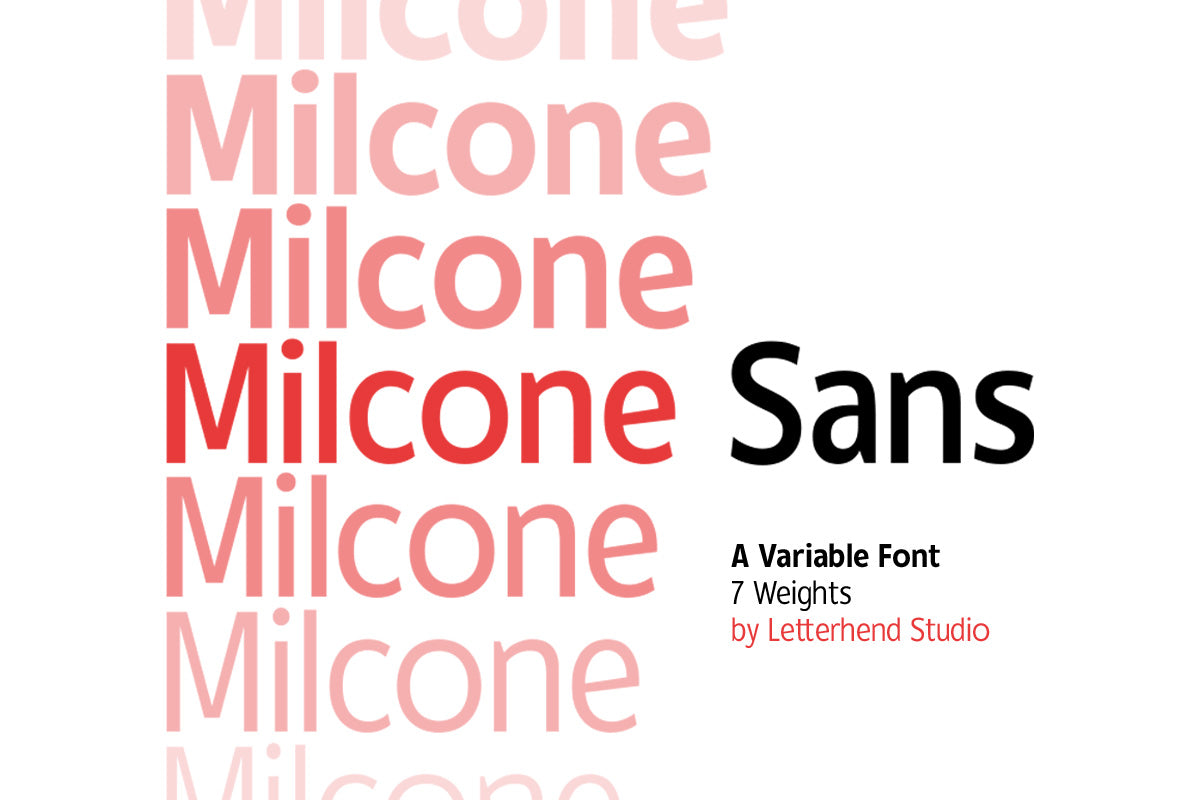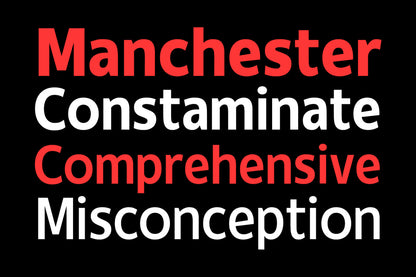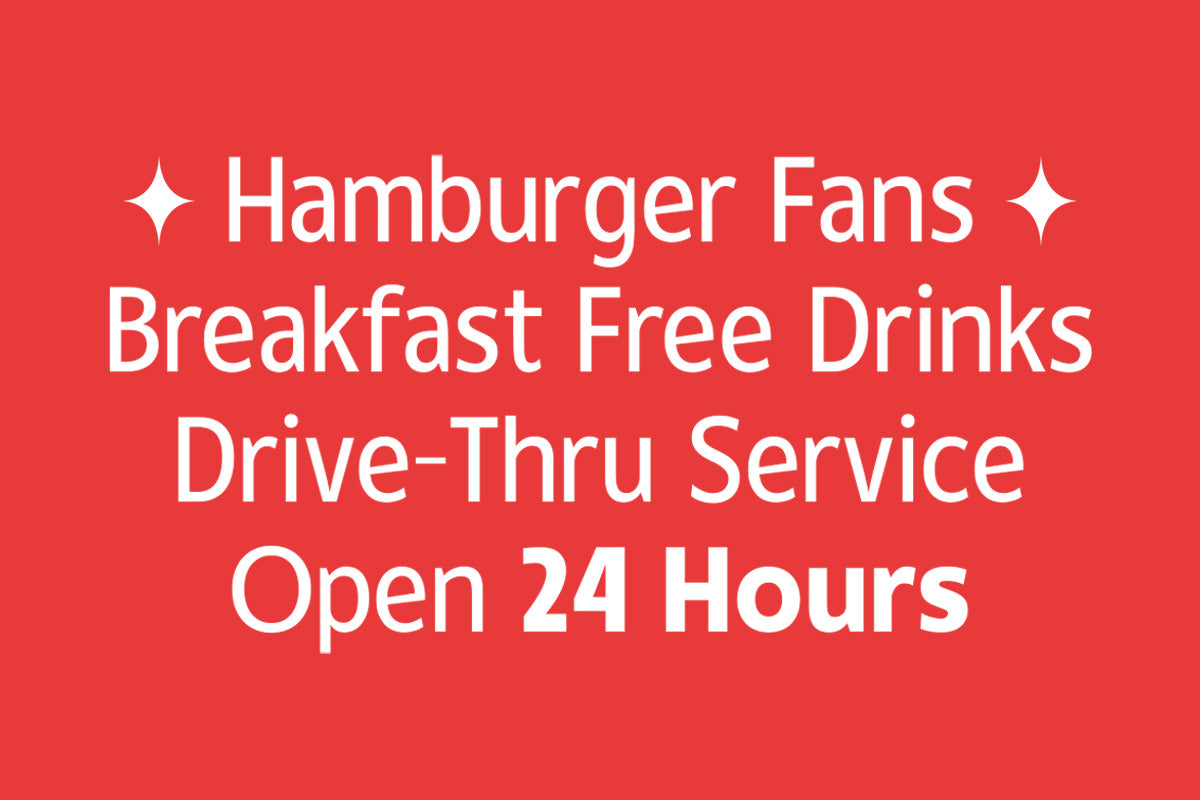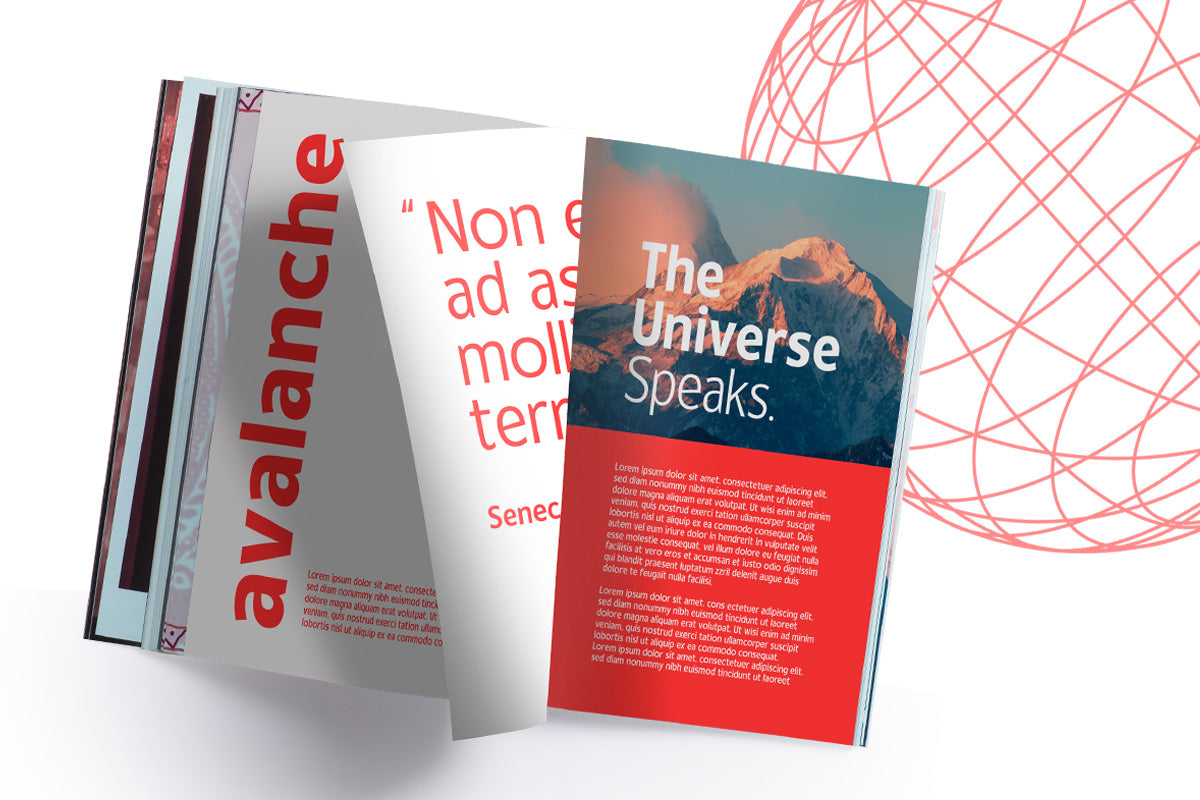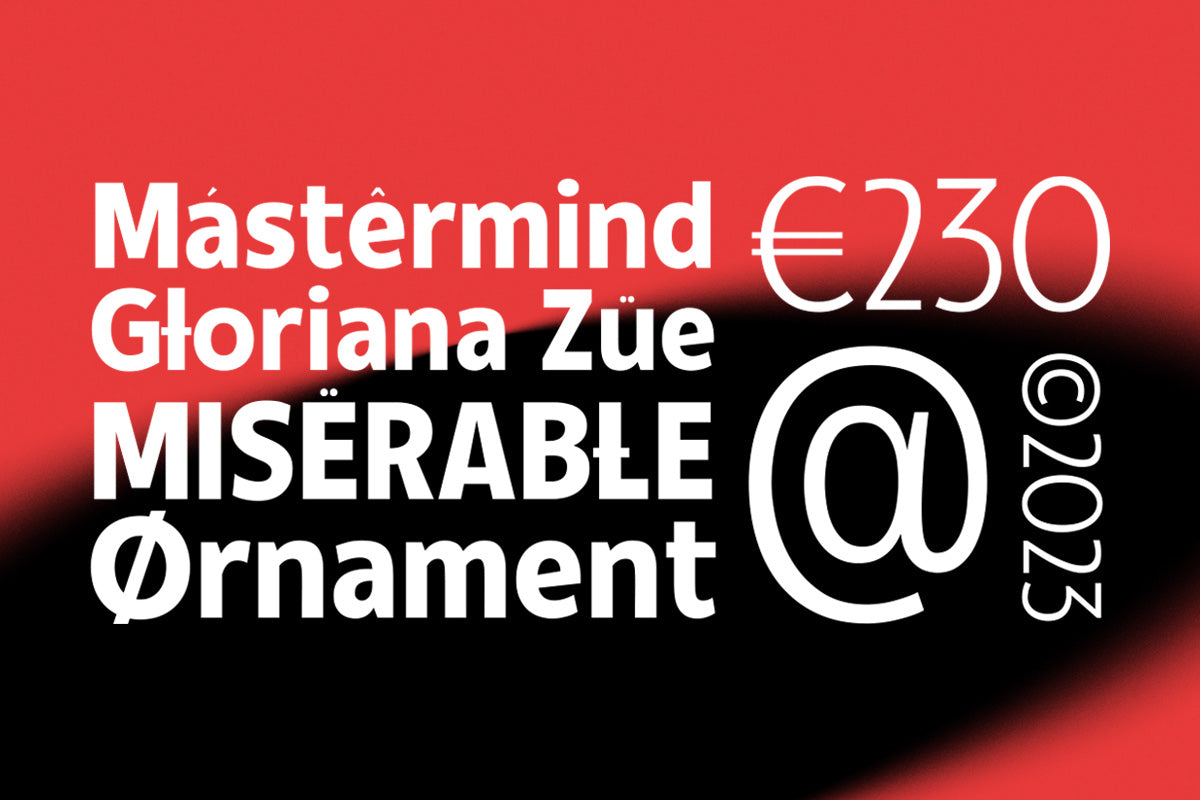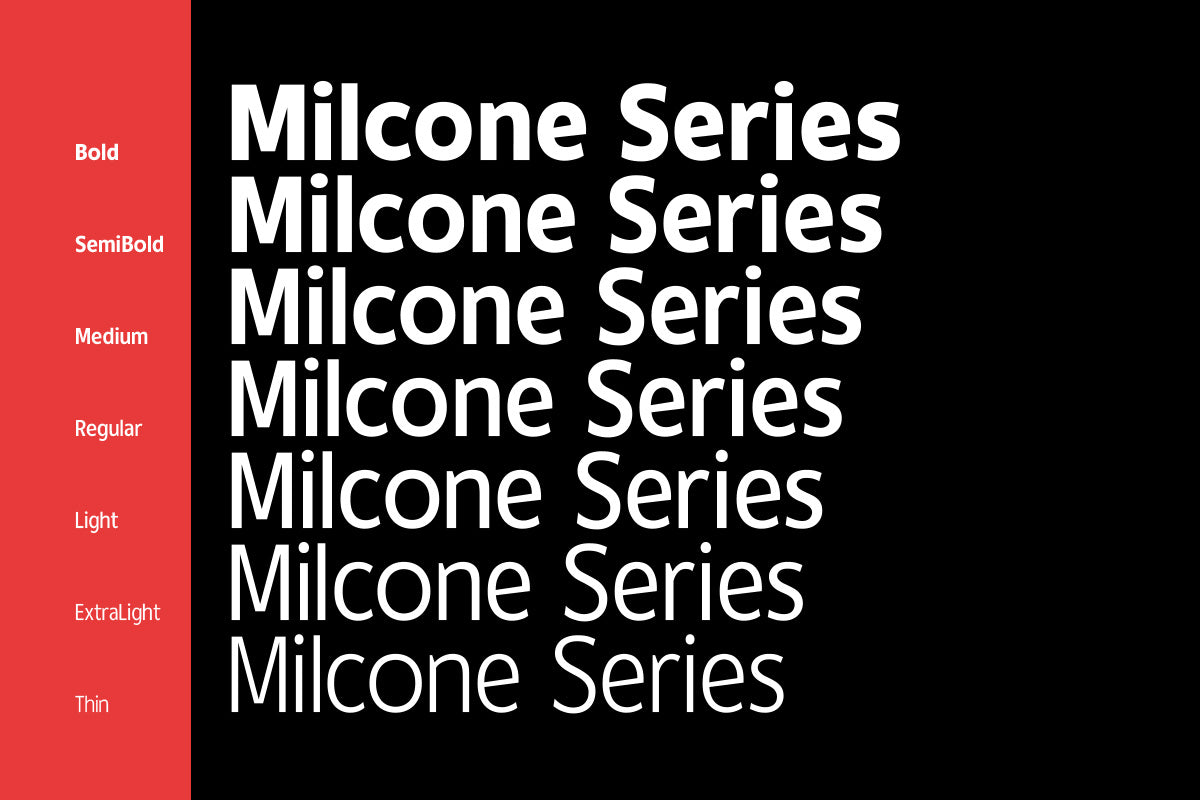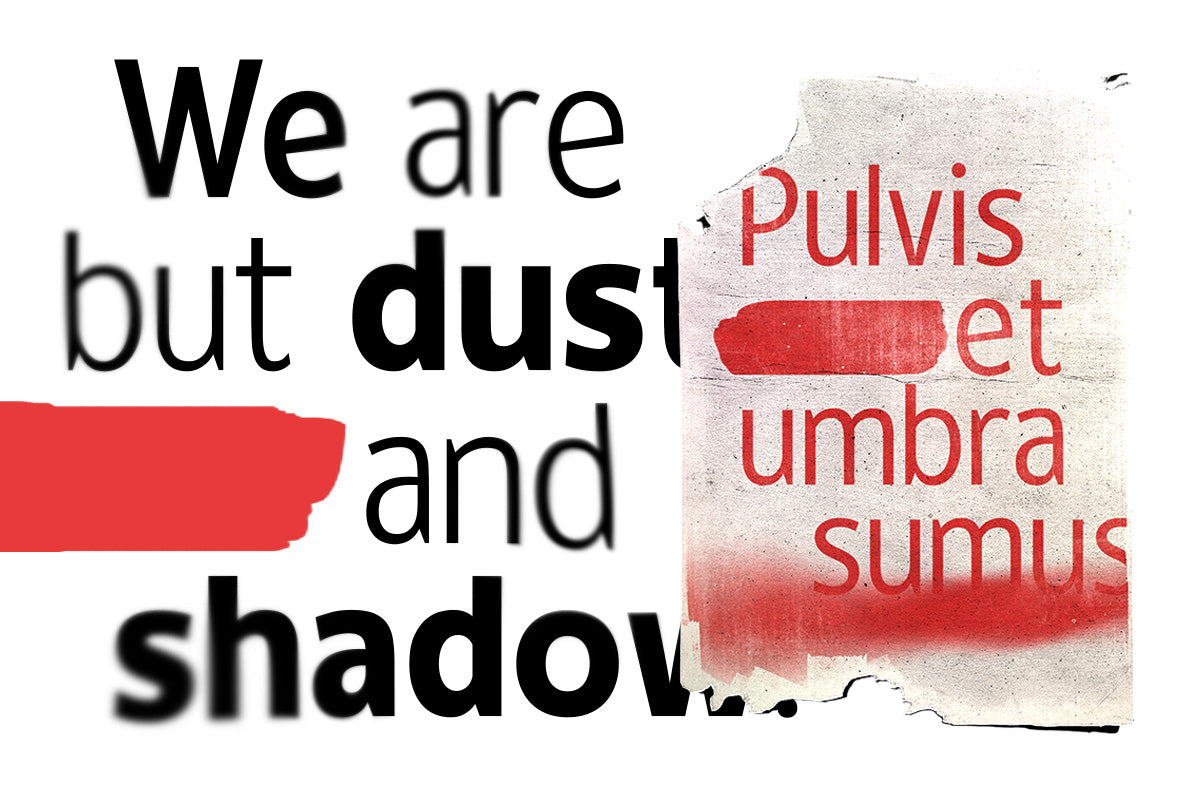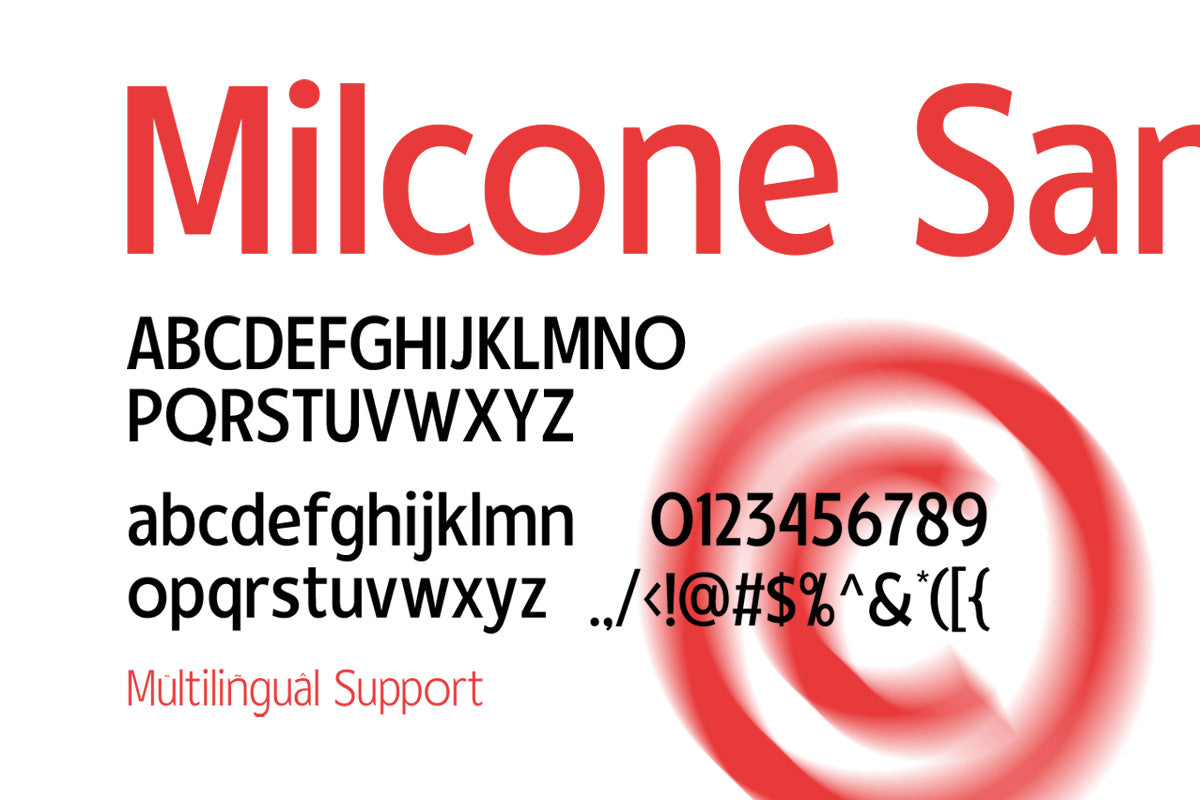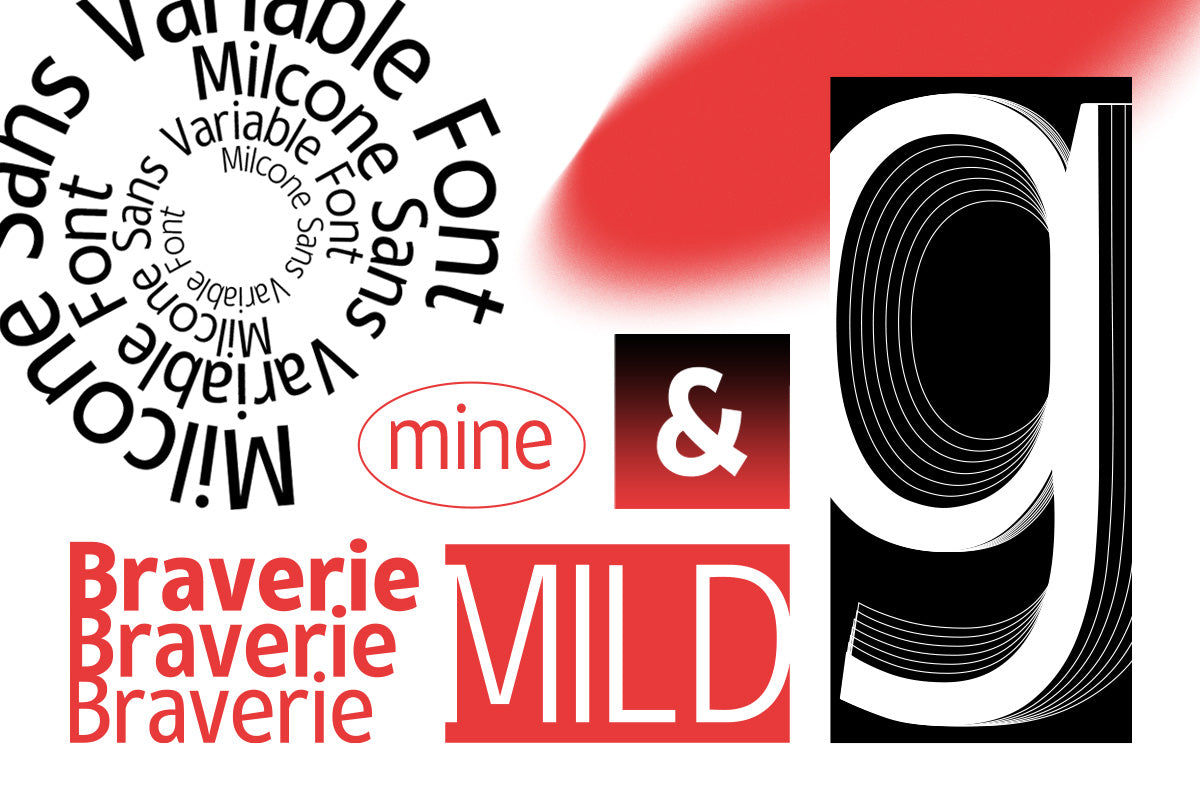
Milcone - Variable Sans
Introducing Milcone Sans, a versatile variable font designed to elevate your projects with a modern and professional touch. With its 7 weight variations, this font offers flexibility and adaptability to suit any design need. Whether it's for digital or print, Milcone Sans delivers a sleek and contemporary aesthetic that exudes professionalism.
Features :
Uppercase & lowercase
Numbers and punctuation
Alternates & Ligatures
Multilingual